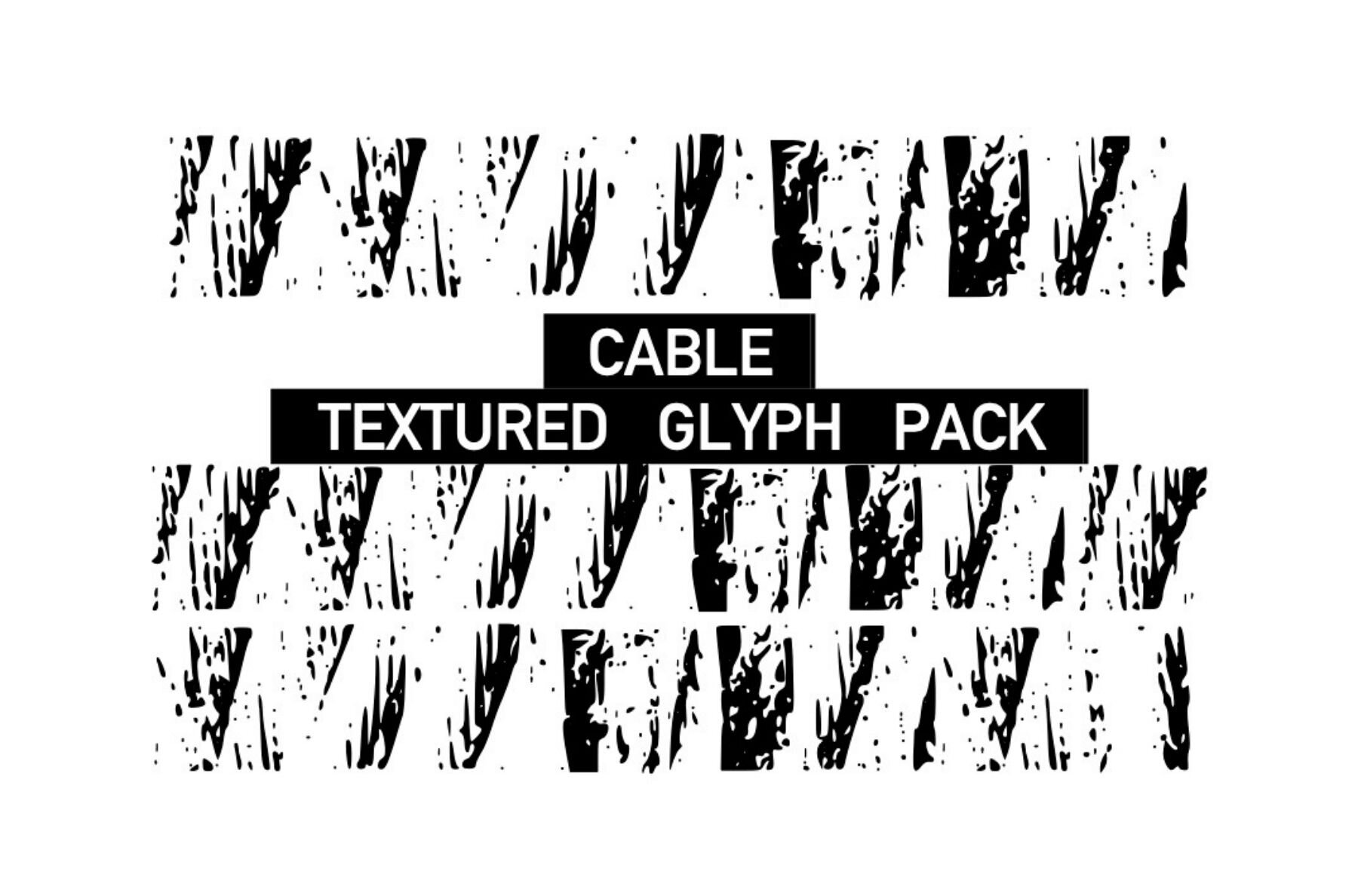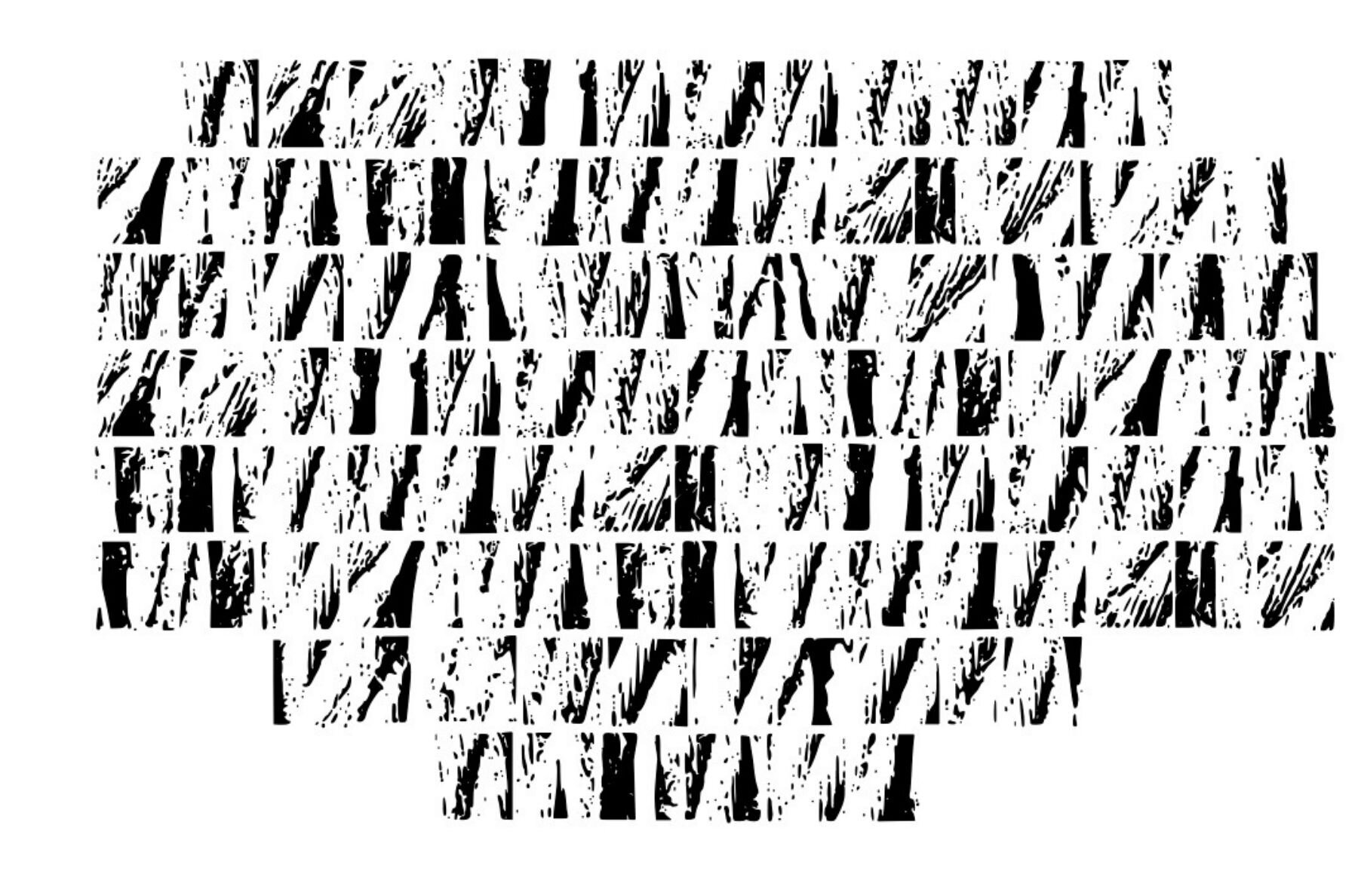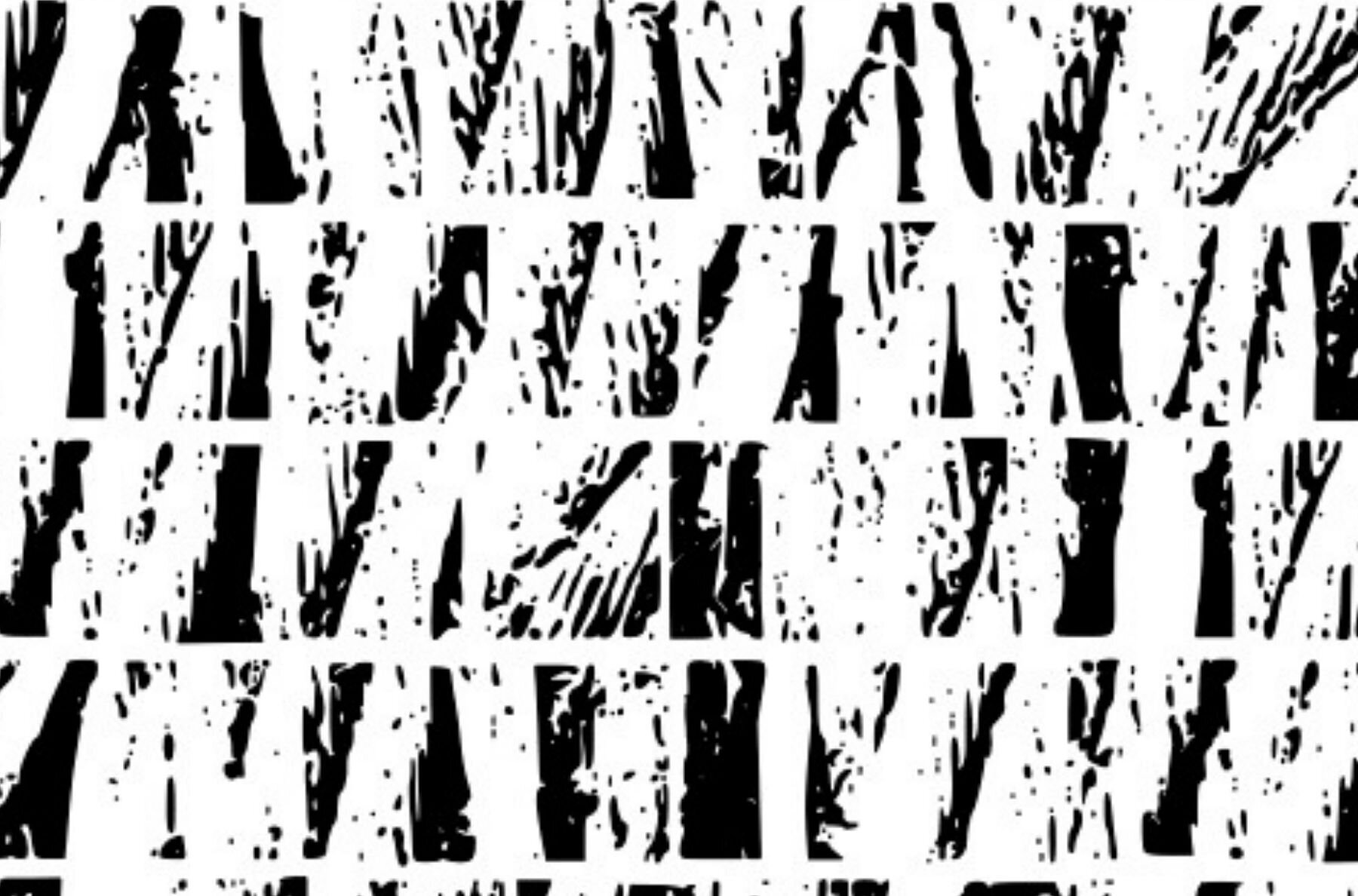
Texture Cable Font
Texture Cable
Discover a striking collection of rusted metal rope textures with the Texture Cable: Metal Cable Glyphs. This extensive pack infuses your design or craft projects with a unique industrial flair. Whether you're working on graphic design, digital artwork, or DIY crafts, these textures provide a robust and edgy aesthetic that sets your work apart.Texture Cable: Metal Cable Glyphs